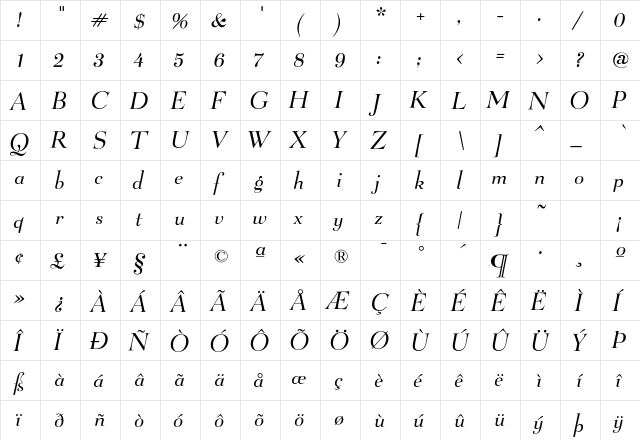
BeLucian FB Book Italic
Design Context for BeLucian FB Book Typeface
BeLucian FB Book is a composed and adaptable typeface that performs quietly and consistently across a wide range of design contexts. Its italic angle brings a sense of urgency and motion to the letterforms.
Pro Tip: Try BeLucian FB Book for annotation and caption copy alongside an upright companion — the contrast in angle creates a dynamic but ordered typographic system.